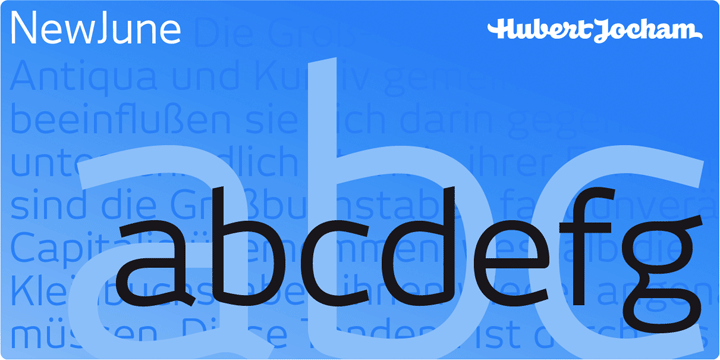
Please note, you must purchase this font for commercial use. You can download NewJune Font Free Download for testing purposes and explore its elegant, modern design. NewJune Font is perfect for contemporary branding, editorial content, invitations, and any project that requires a stylish, sophisticated touch.
With its sleek curves, contemporary feel, and stylish form, NewJune Font adds a refined yet approachable aesthetic to your designs. It’s ideal for projects that need to convey both elegance and modernity, making it a great choice for logos, headings, and creative content.
NewJune Font Free Download supports multilingual characters, making it versatile for global projects. Its legible design ensures readability across both print and digital formats, making it a great choice for various applications.